This guide to laser cutting & engraving fonts explains how to choose stencil fonts that keep counters open, single-line/monoline fonts that trace cleanly when engraving or scoring, and practical tests for bridge width, kerf, and material choice. Use it for signs, gifts, ornaments, tags and tumblers with a rotary.
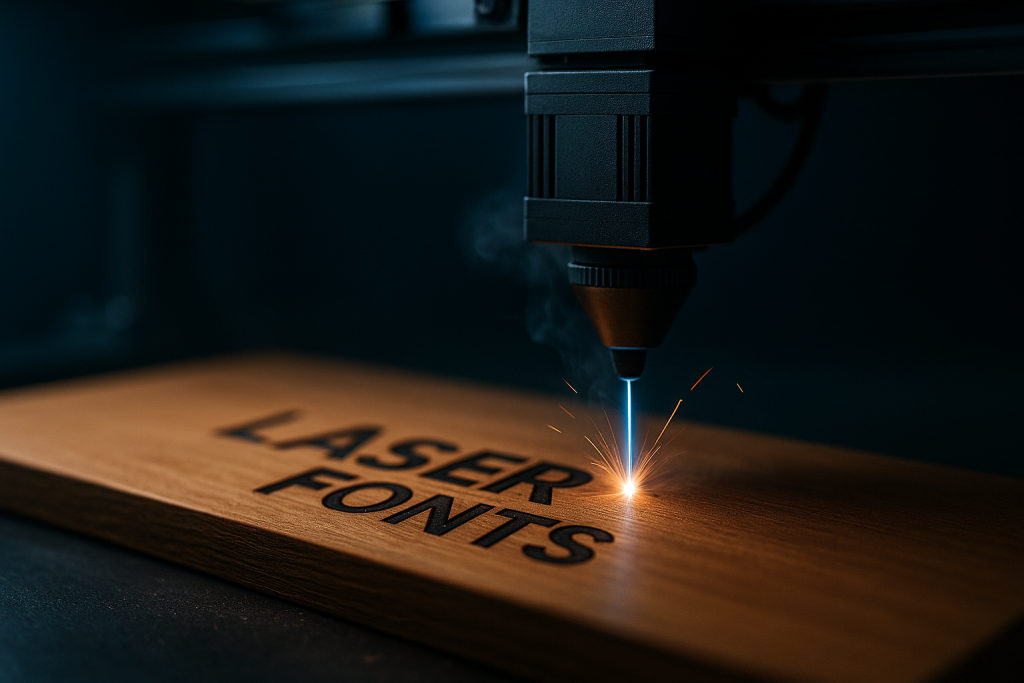
Editor’s top picks – Laser Cutting & Engraving Fonts
Stencil (bridged)
Built-in bridges keep counters open in A, O, R, P – perfect for wood signs, crates and spray/etch templates.
Single-Line
True centerline paths for score and engrave; zero fill, ultra-fast tracing on acrylic, metal and leather.
Monoline Script
Smooth, even-stroke scripts that engrave cleanly and avoid ragged edges on curves.
Signs (Bold Sans)
Chunky, high-contrast sans with generous counters; suited for outdoor visibility and quick weeding/masking.
Gifts / Monograms
Classic initials and frames for boards, knives, tumblers and keepsakes (use rotary for curved items).
Ornaments & Tags
Sturdy shapes with thicker bridges for small pieces; avoids dropouts during cut and hang.
How to choose laser cutting & engraving fonts
- Bridges for cut-through jobs. Stencil fonts keep counters attached; avoid hairline bridges that will scorch or snap.
- Stroke/bridge thickness. For small pieces, prefer heavier stems and open apertures; thin spikes burn away or chip.
- True curves, fewer nodes. Clean vectors reduce charring and eliminate jitter on tight arcs.
- Single-line for engraving. Use single-line or monoline faces for fast, crisp tracing without fill.
- Material-aware choices. Plywood tolerates thinner bridges than brittle acrylic; leather loves monoline scripts.
Quick tests before you cut
- Mini sign test: make a 60×60 mm tile with “AERO PRIMO” in your chosen font. Check bridges on A, O, P, R and the inner spur of e.
- Bridge width: aim for ≥ material thickness ÷ 2 (e.g., ~1.5 mm on 3 mm ply) or at least 1.2–1.6 mm on acrylic to prevent snapping.
- Kerf allowance: add Offset/Outset +0.10–0.25 mm to fragile strokes; do not offset single-line engraving paths.
- Node simplification: reduce points on curves (esp. S, C, O) for smoother edges and faster motion.
Material tips for laser fonts
- Plywood/MDF: bridges can be slightly thinner; mask with tape to minimize soot, sand edges lightly.
- Acrylic: avoid needle-thin spikes; keep inner islands big enough to handle. Remove protective film after cut for glossy edges.
- Leather: monoline scripts engrave beautifully; test low power/high speed to avoid deep burns.
- Stainless tumblers: single-line tracing + rotary; increase contrast with light hatch if needed.
Laser projects you can ship today
- Bridged door signs: bold stencil + simple frame; add 0.15 mm offset to thin areas.
- Monogram cutting boards: monoline engraving for classy, legible initials.
- Ornaments & gift tags: stencil display at ≥35 mm height; keep bridges generous.
- Tumbler wraps: monogram or short name in single-line; use a rotary and test on the back first.
Single-line vs outline fonts (for score/engrave)
Single-line fonts use a center stroke that a laser traces once – fast and crisp for score or vector engrave. Outline fonts have thickness; the laser will trace both edges (or you must hatch-fill). For thin captions and fine detail, prefer single-line.
Quick fixes for common problems
- Dropouts in A/O/P: switch to a bridged stencil or add manual bridges 1.2–2.0 mm wide.
- Charred edges: reduce power, increase speed, use air assist and masking; prefer smoother fonts.
- Hairline breaks: apply +0.10–0.25 mm offset or choose a heavier cut of the font.
- Engrave looks fuzzy: use single-line; if using outline, add light hatch (tight line spacing) and raise DPI moderately.